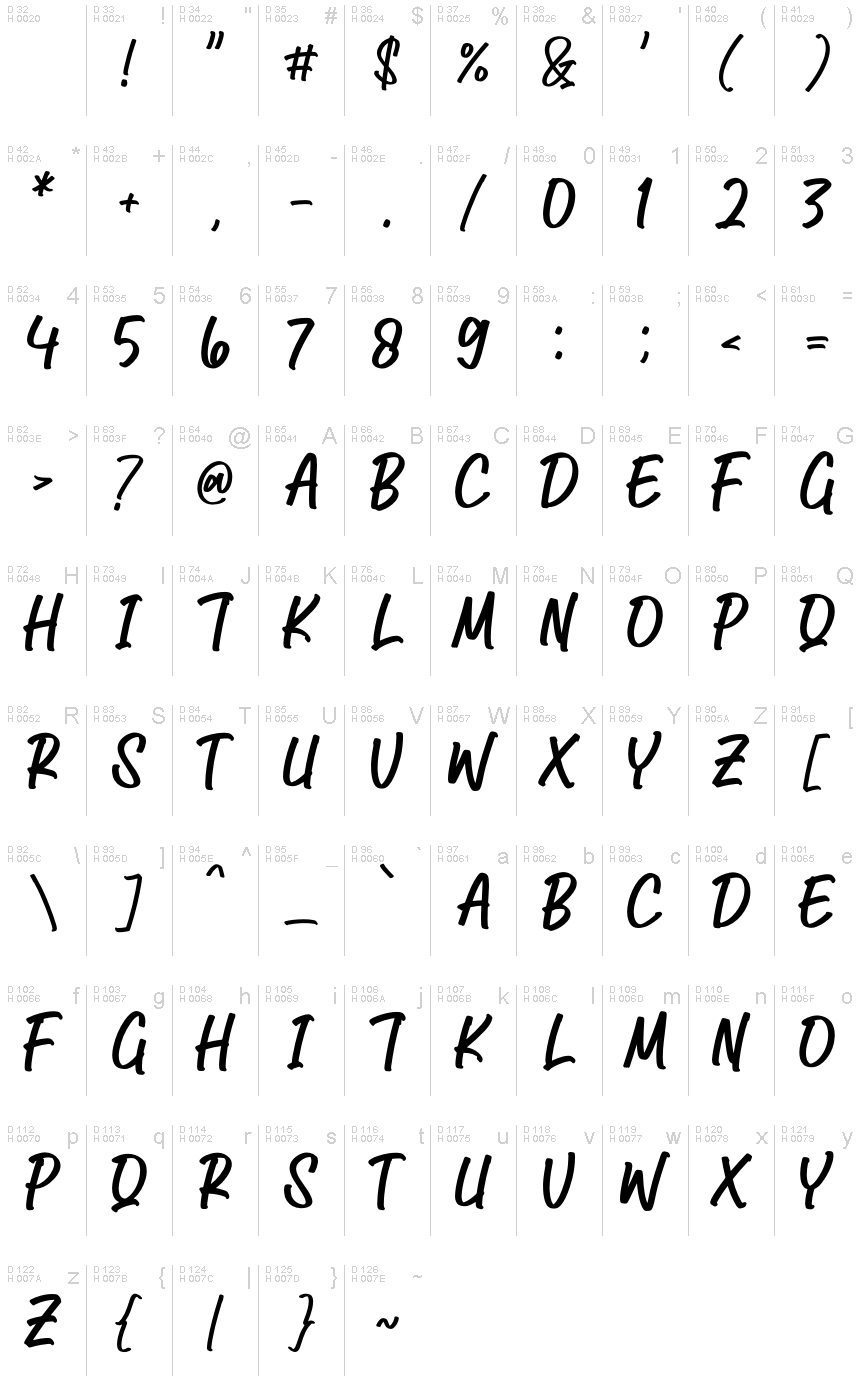
Blue Marker
Vibrant and expressive, Blue Marker is a captivating handwritten font crafted by Perspectype Studio. This dynamic typeface boasts a bold, fluid stroke that exudes a sense of spontaneity and energy, lending a touch of personality to any design. The organic, freehand-inspired lines create a delightfully authentic aesthetic, making Blue Marker an excellent choice for projects seeking a handmade, artisanal feel.
Blue Marker's versatility shines through, making it a versatile choice for a wide range of applications. From eye-catching headlines and impactful branding to playful packaging and engaging stationery, this font effortlessly adapts to diverse design needs. Its distinctive character and vibrant tone lend themselves particularly well to projects aiming to convey a sense of warmth, creativity, and approachability.